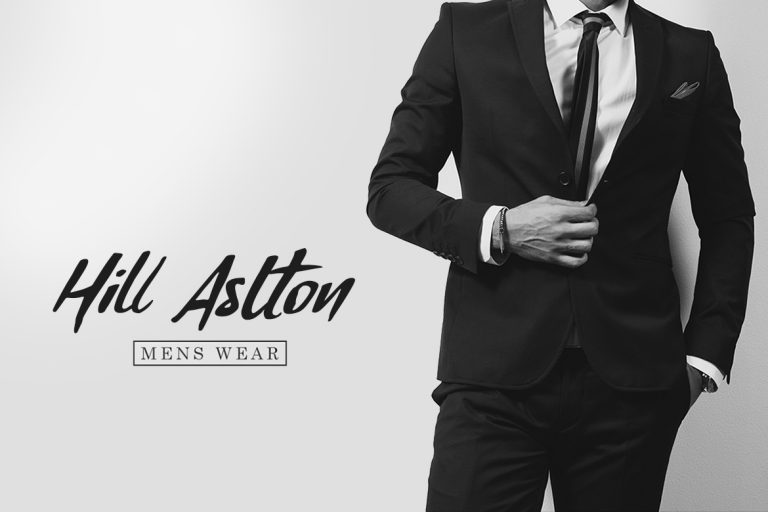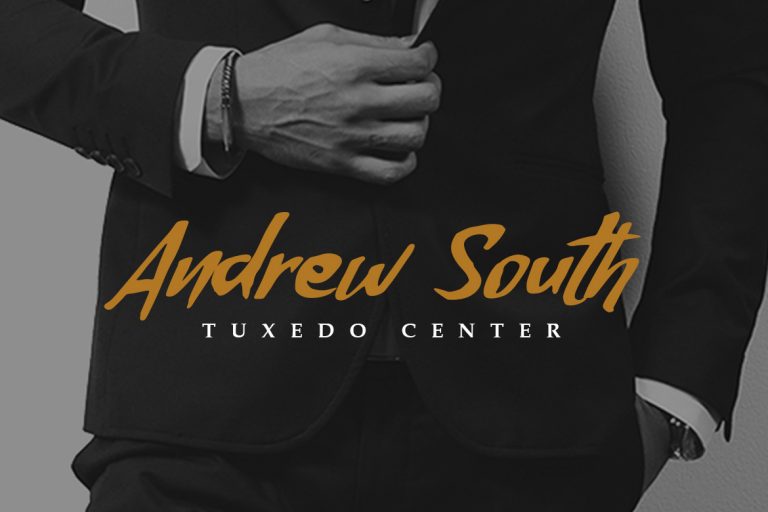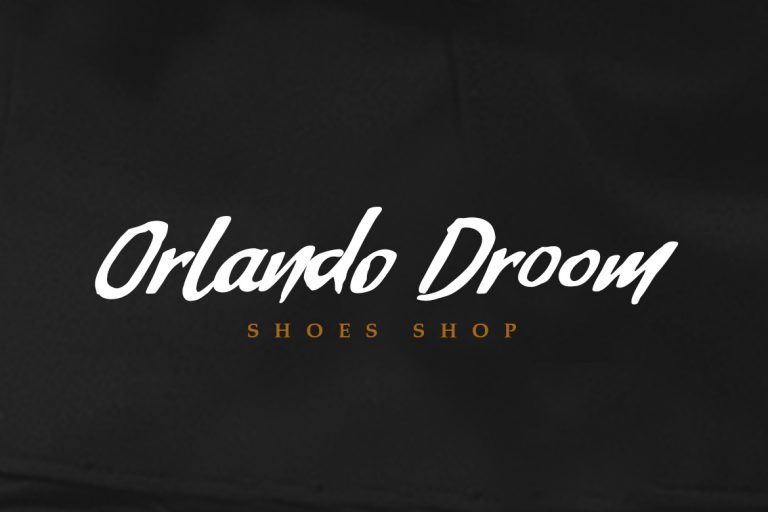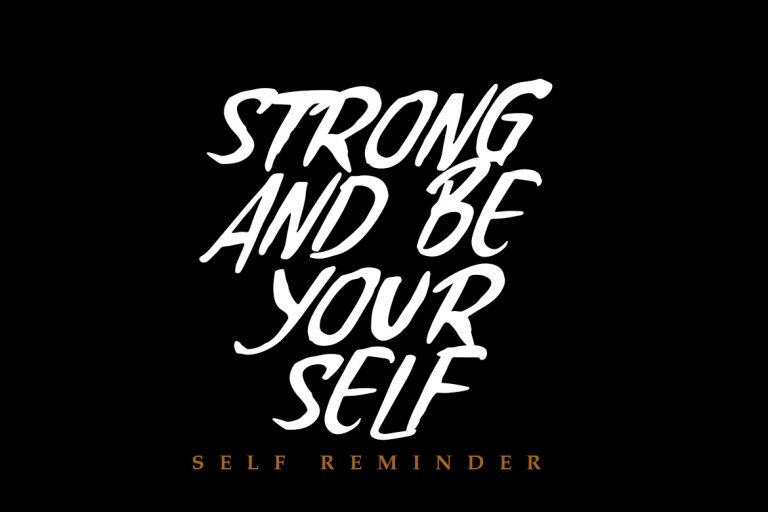
Santiago
Introducing Santiago Font. Santiago is a luxury handwritten font . Made with naturally handwritten. The font will make your design more beautiful and powerful. This font is suitable for any design like branding, quotes and etc. I hope you enjoy it !! Thanks for visiting and downloading my font!